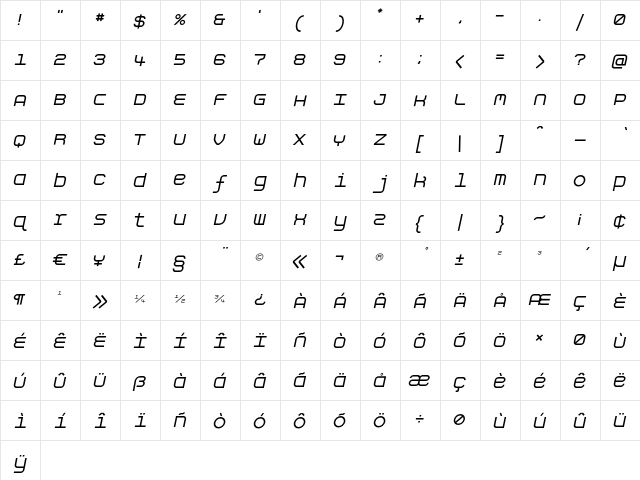
Aspirin Intoxicate
Design Context for Aspirin Typeface
Aspirin takes a measured approach to typography — its balanced proportions and neutral character make it a reliable workhorse for both digital and print work.